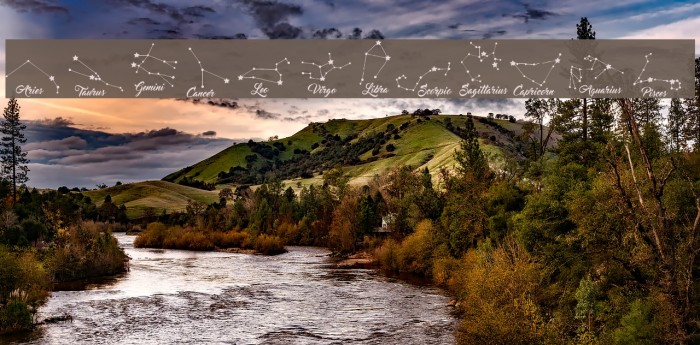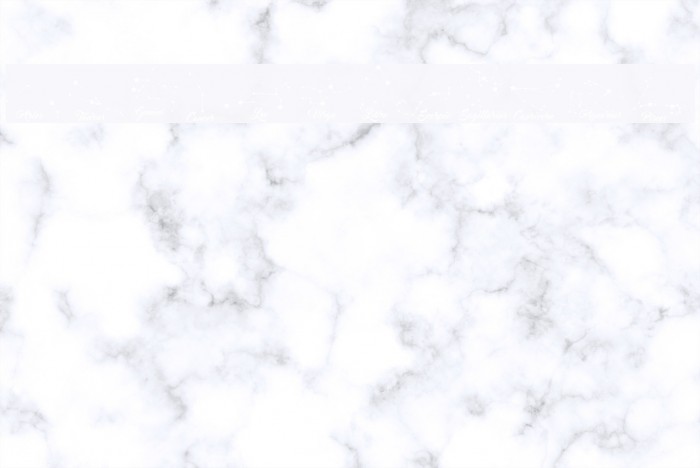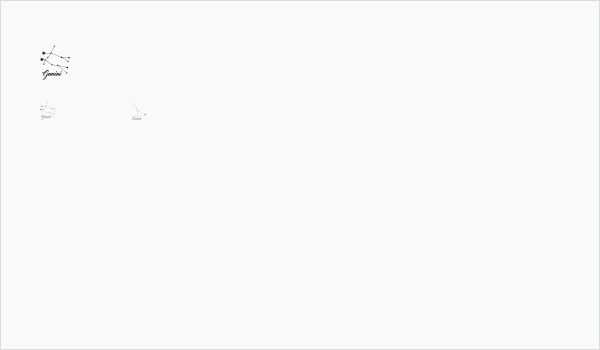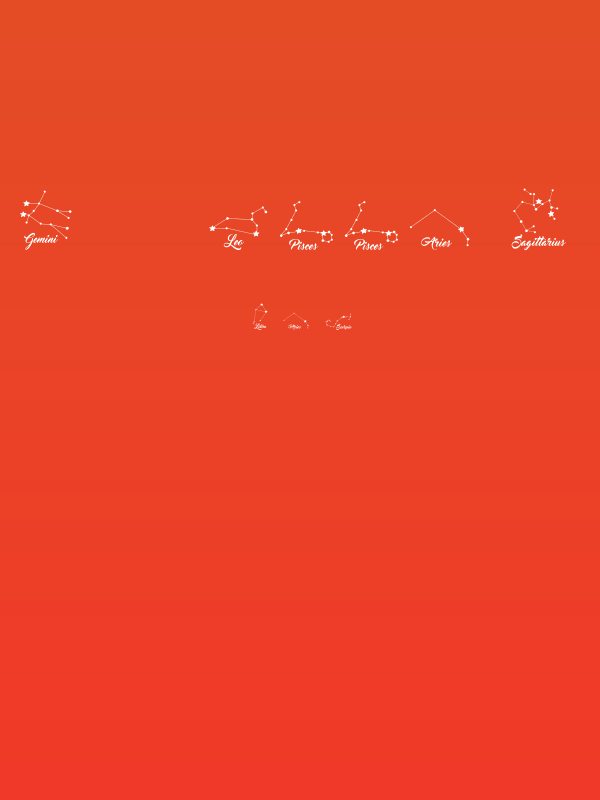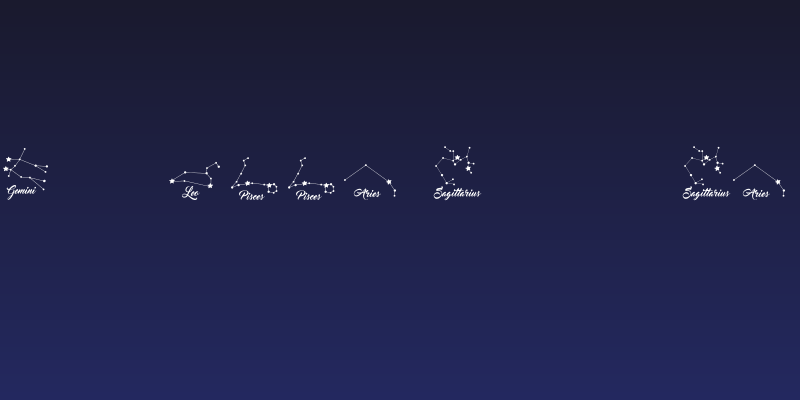
Constellations Ostia Font
Constellations Ostia Description
This is not a valid font image. The image contains illustrations of constellations paired with their names in a script style. Each constellation is depicted with lines connecting stars, and the names are written in a flowing, cursive script. The style is decorative and artistic, focusing on the visual representation of constellations rather than a traditional font layout.
| Use Case | Decorative posters, educational materials |
| Proposed Projects | This style is suitable for artistic projects, educational materials about astronomy, or decorative posters. |